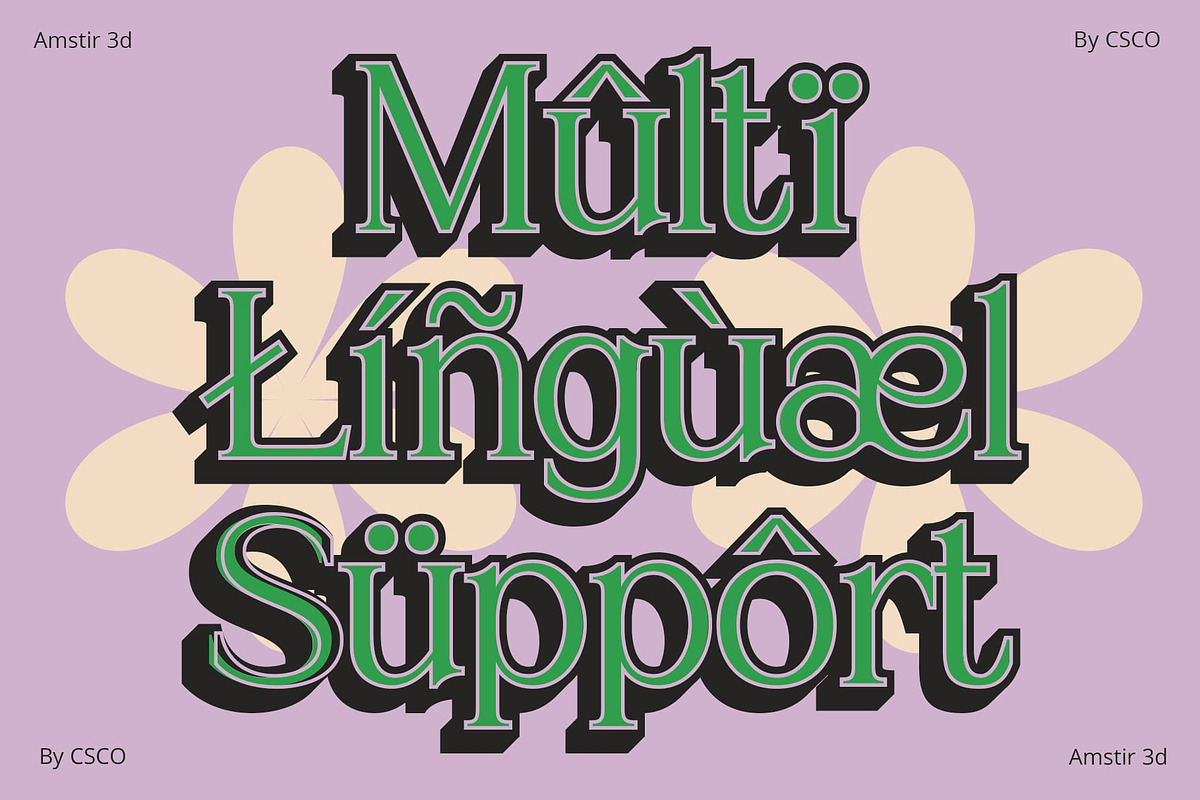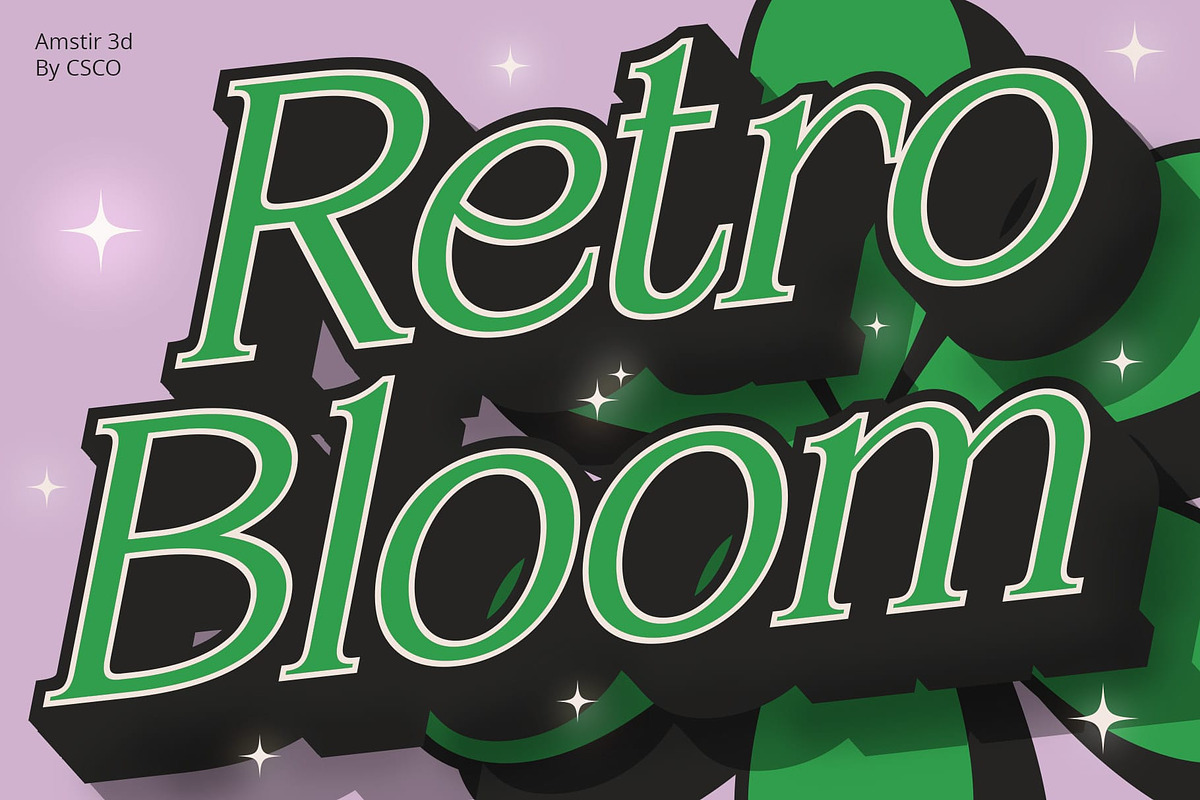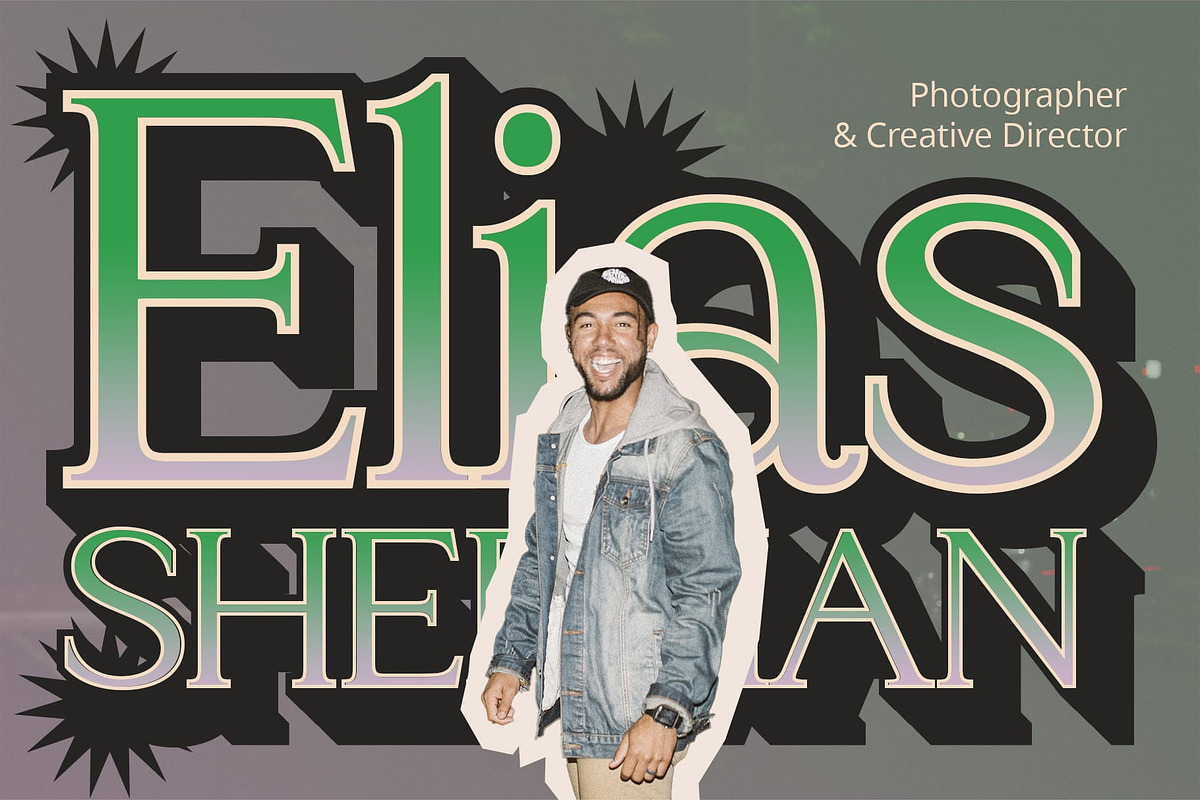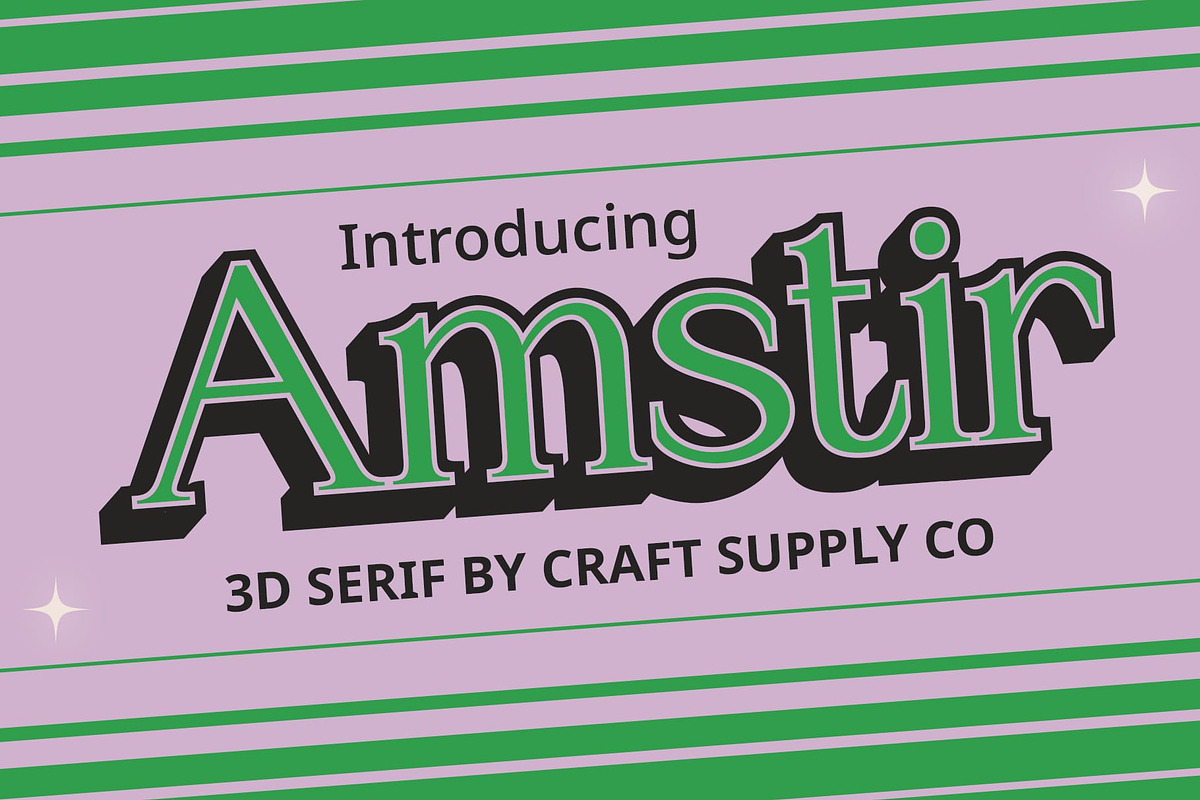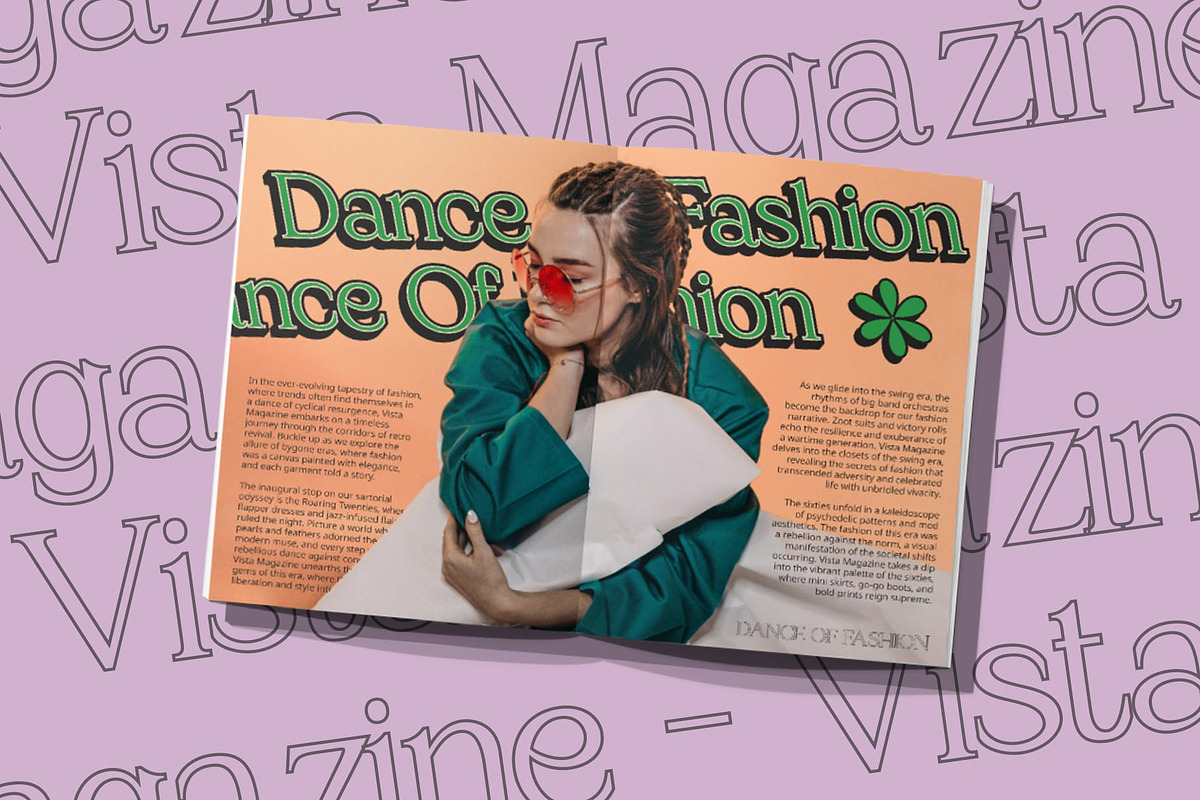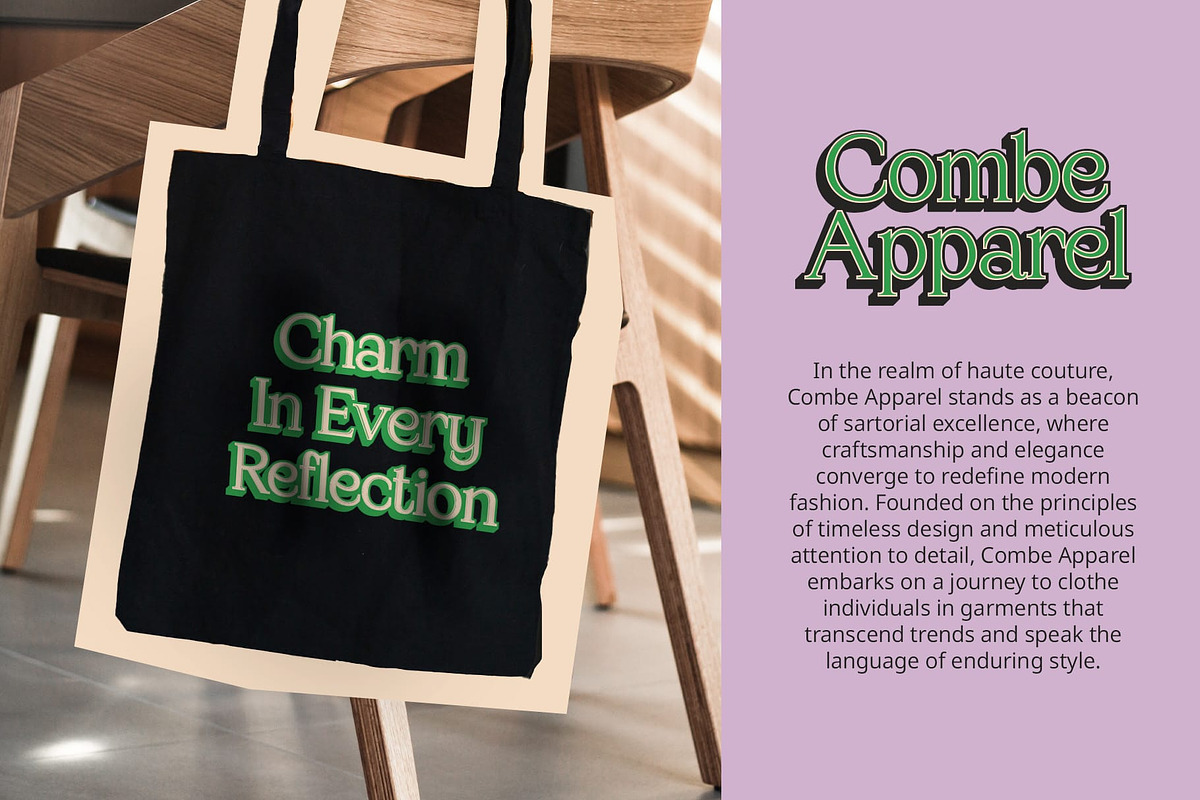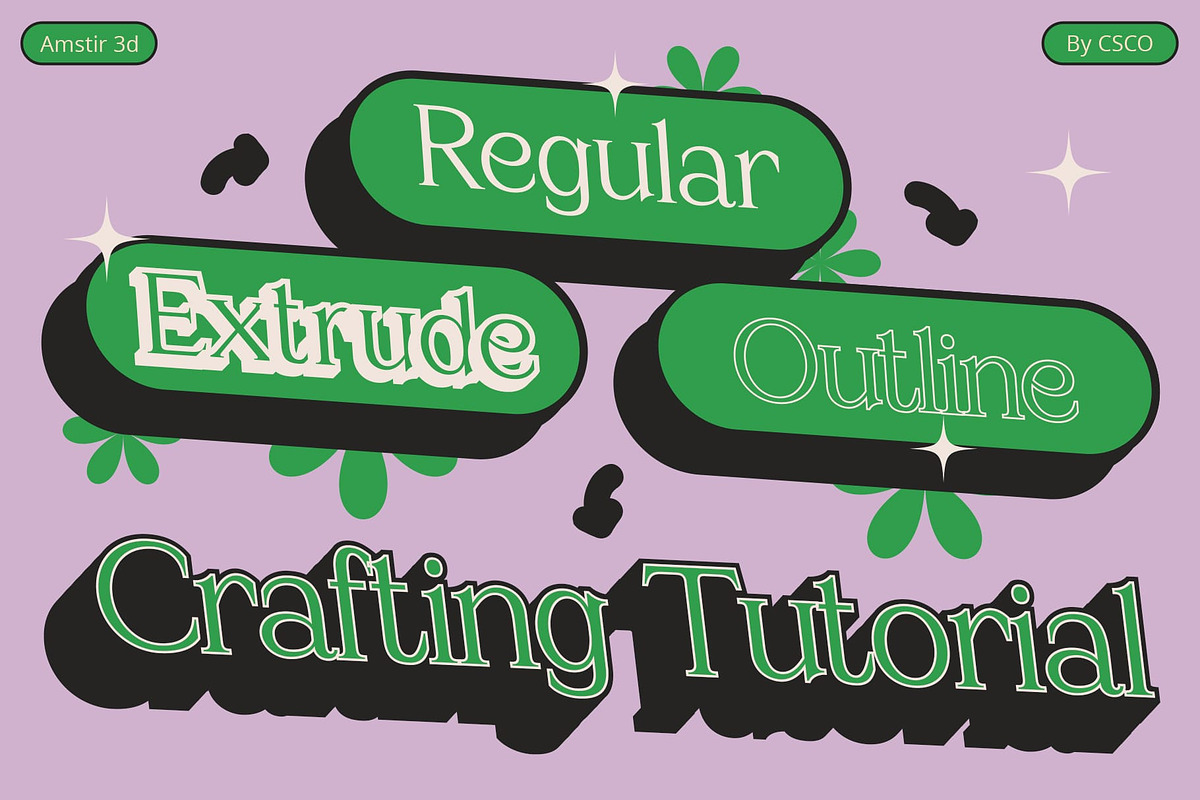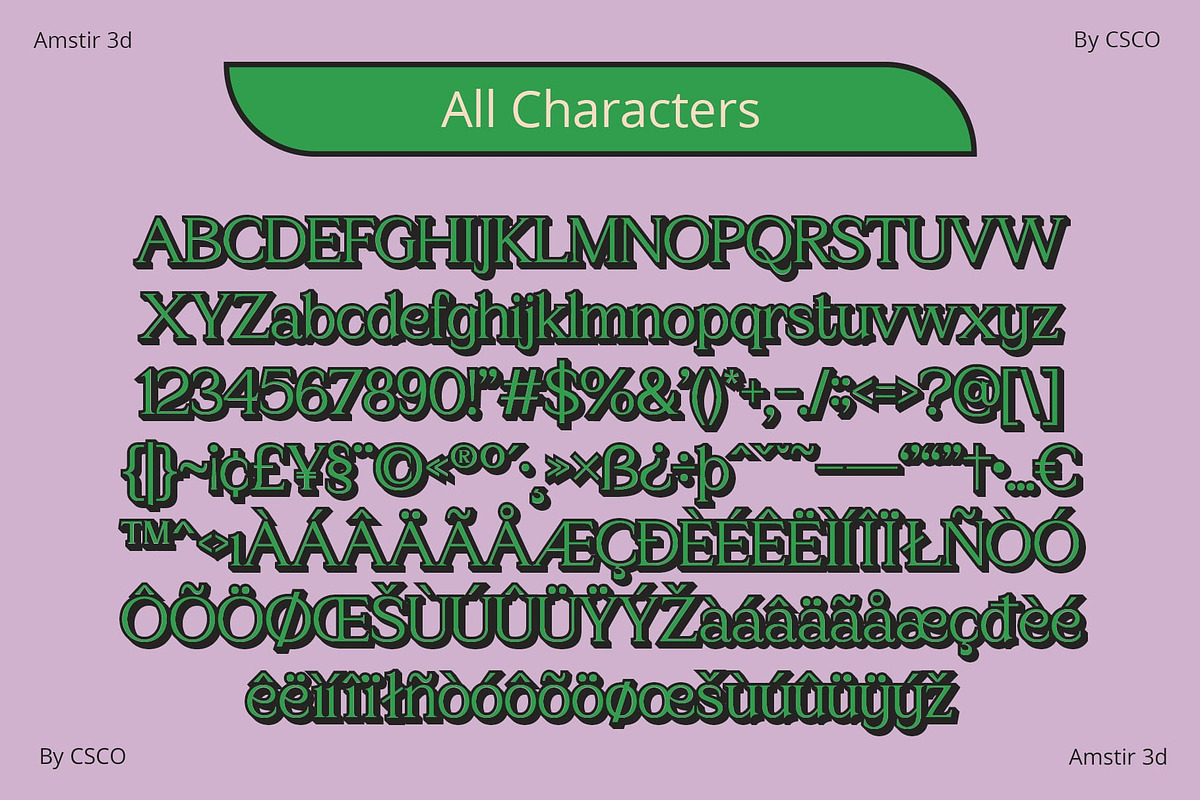
Amstir 3D
Amstir 3D: Classic Elegance with a Pop Twist
Charming Classicism Amstir 3D effortlessly blends classic serif elegance with a touch of modernity, creating a font that stands the test of time.
Dynamic 3D Appeal The font comes to life with its 3D effect, adding depth and dimension that transforms traditional serif into a visually striking masterpiece.
Pop and Eye-Catching Despite its classic roots, this font introduces a playful pop, catching eyes and adding an unexpected flair to any design it graces.
Versatility Unleashed From print materials to digital platforms, Amstir 3D adapts seamlessly, ensuring your message resonates with a timeless charm and contemporary allure.
Conclusion Amstir 3D isn’t just a font; it’s a fusion of classic sophistication and modern charisma. Elevate your designs with a touch of 3D magic, ensuring they captivate and leave a lasting impression.